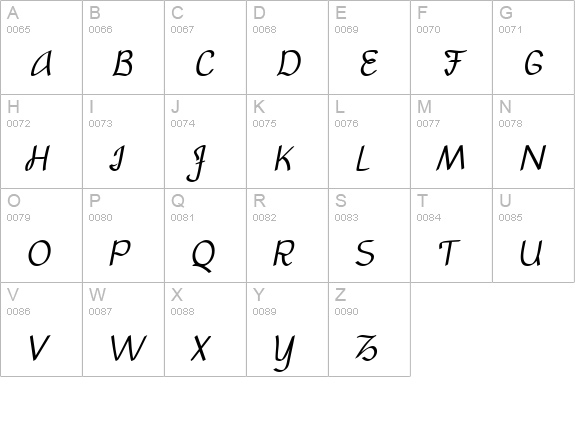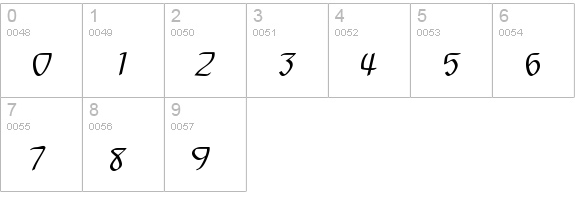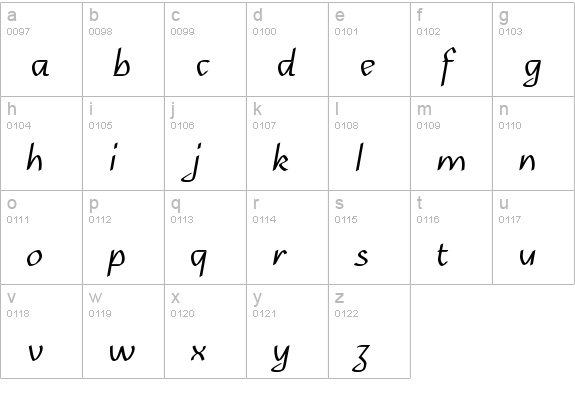
Handana Plain Font Details
Handana Plain is a stunning and versatile font that exudes simplicity and elegance. With its clean lines and minimalist design, this font is perfect for a wide range of projects, from branding and logo design to packaging and editorial layouts. The beauty of Handana Plain lies in its ability to effortlessly blend into any design, adding a touch of sophistication and class. Its timeless appeal makes it suitable for both modern and traditional themes, making it a truly versatile font choice. One of the standout features of Handana Plain is that it is available for free. Yes, you read that correctly - this incredible font can be downloaded for free at FontsMarket.com. This means that you can enjoy the beauty and versatility of Handana Plain without having to spend a dime! Whether you are a professional designer looking for a new font to add to your collection, or a hobbyist looking to enhance your creative projects, Handana Plain is a font that will not disappoint. With its clean and legible letterforms, it is incredibly easy to read, ensuring that your message is conveyed effortlessly. So why wait? Head over to FontsMarket.com and download Handana Plain today. Unleash your creativity and elevate your designs with this stunning font that is freely available for all to enjoy.